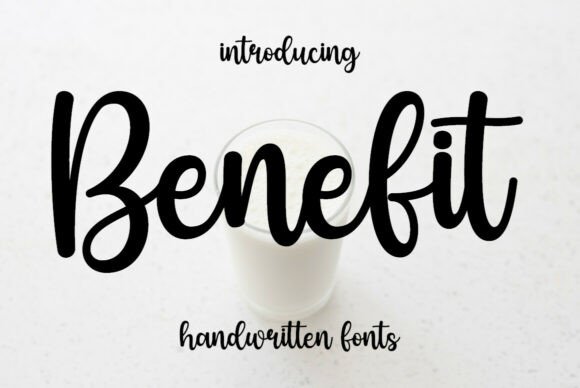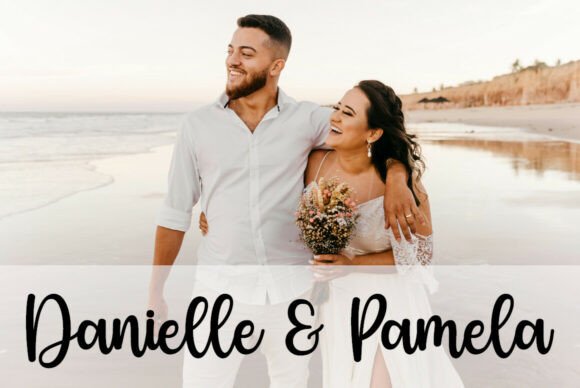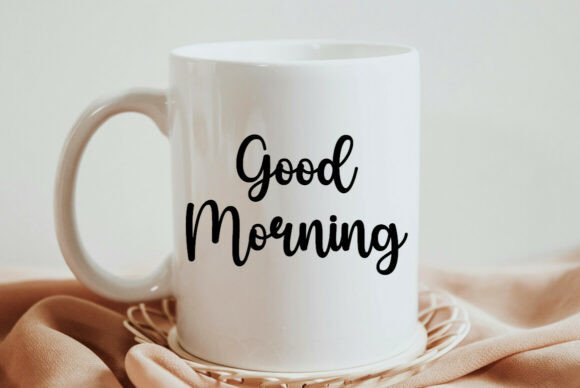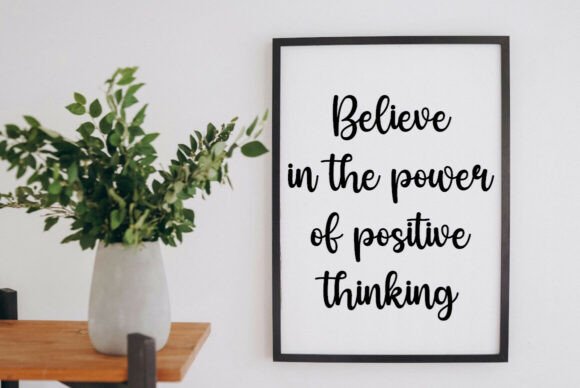
Benefit Font: Sweet Handwritten Script for Wedding & Branding
About the Benefit Font
Unleash your creativity with Benefit Font, a versatile font perfect for a wide range of applications. Benefit is a sweet and cursive handwritten font. This gentle font will look gorgeous on a variety of design ideas. It will add a joyful and romantic touch to each of your projects! Perfectly fit for branding, logo, wedding things, greeting cards, fashion, lookbook, marketing promotion, and any time you want your design to look fancy and elegant but still casual.
Benefit Font Usage Examples
Benefit Font Example